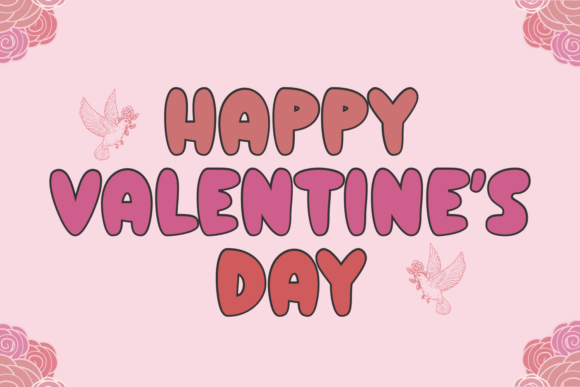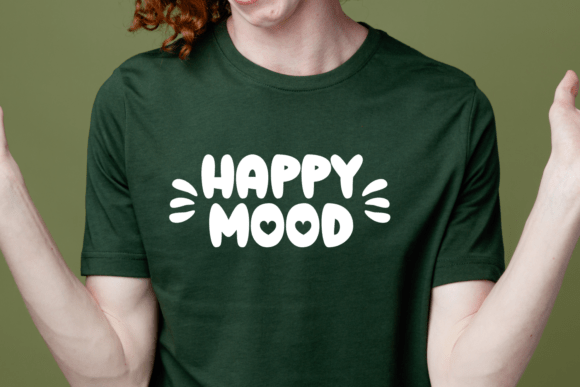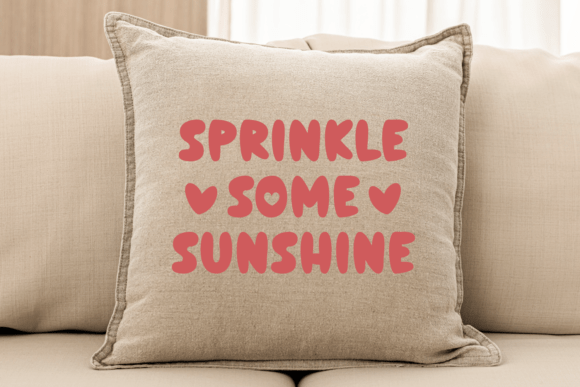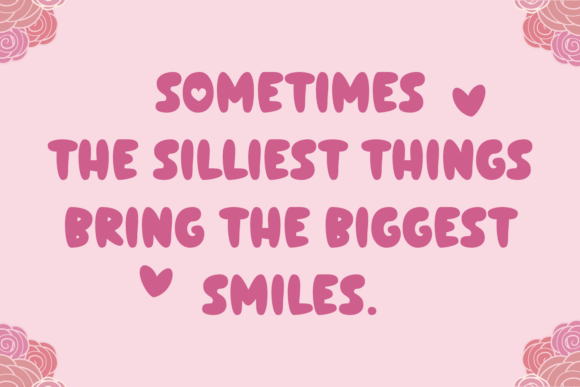
Introduction to Love Eagle Font
Have you ever stumbled upon a font that perfectly captures the essence of your creative vision? For designers, finding the right font can be a game-changer, elevating a project from ordinary to extraordinary. One such font that has taken the design world by storm is the Love Eagle Font, a bold and cute display font that embodies the spirit of love and playfulness.
Imagine being able to add a dash of fun and personality to your designs with just one font. With Love Eagle Font, you can create eye-catching posters, T-shirts, and branding materials that demand attention. Its chunky letterforms and exaggerated curves make it an ideal choice for children’s content and creative projects that require a high level of creativity and confidence.
Key Features of Love Eagle Font
- Unique Hand-Drawn Design: The Love Eagle Font features a distinctive hand-drawn design that adds a personal touch to any creative project.
Honest Review: Love Eagle Font
I recently had the chance to experiment with the Love Eagle Font, and I’m excited to share my thoughts on this design resource. The font itself is a stunning piece of art, perfect for any creative project that requires a touch of elegance and sophistication. Its high quality is immediately apparent, and it’s great to know that it’s available as a free download.
- ✨ Beautiful, intricate design that’s sure to impress
- ✨ Perfect for use on a transparent background, which really makes the font pop
- ✨ Great for creative projects that require a high level of visual sophistication
- ⚠️ Limited character set, which may be a problem for some users
- ⚠️ Not all characters are equally well-designed, which can be a bit jarring
Overall, I’m really impressed with the Love Eagle Font, and I think it’s a great addition to any designer’s toolkit. While it may have a few limitations, its unique design and high quality make it a must-have for any creative project.
Common Use Cases for the Love Eagle Font
The Love Eagle Font is perfect for a variety of creative projects, including wedding invitations, business logos, and social media graphics. It’s also a great choice for anyone looking to add a touch of elegance and sophistication to their design.